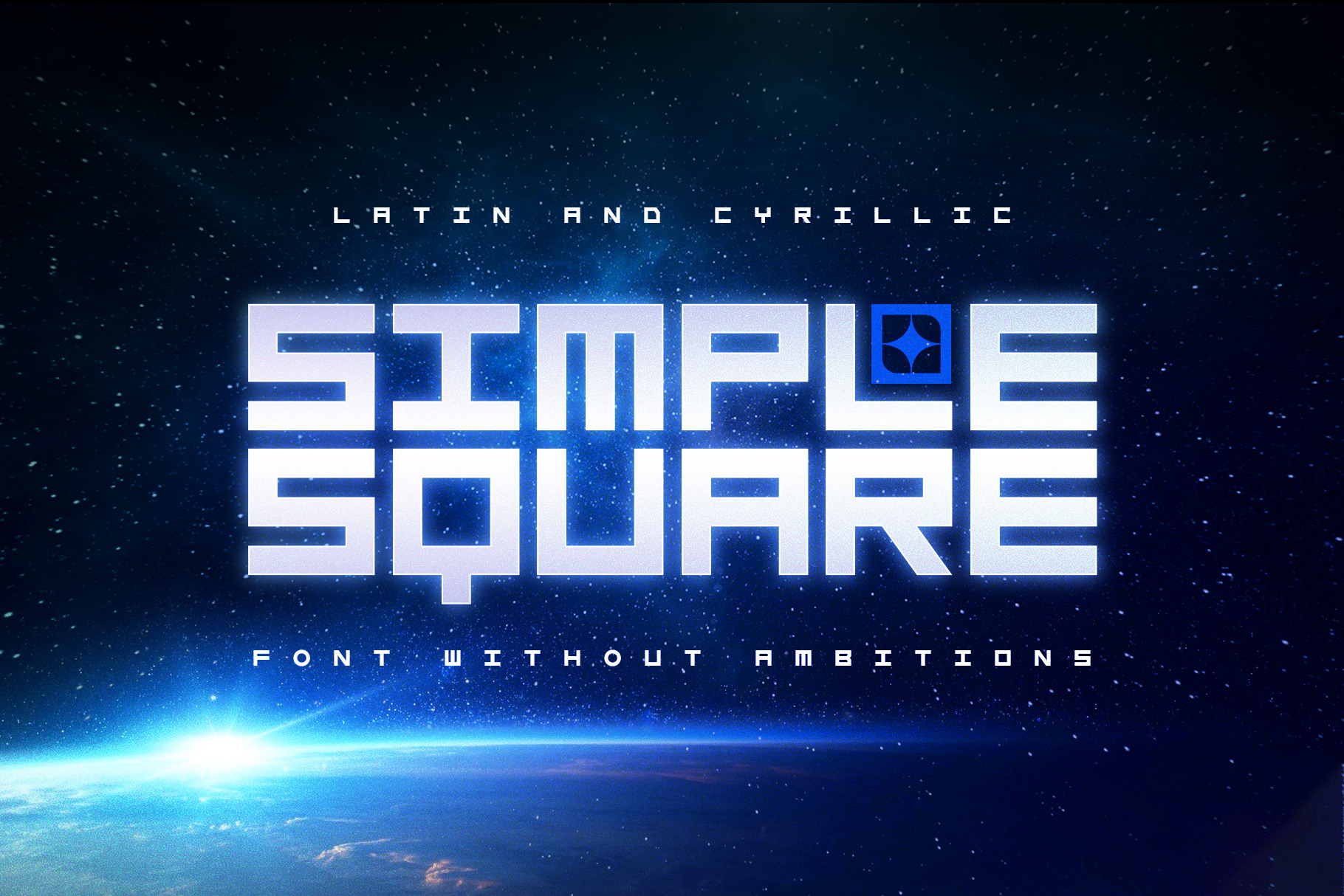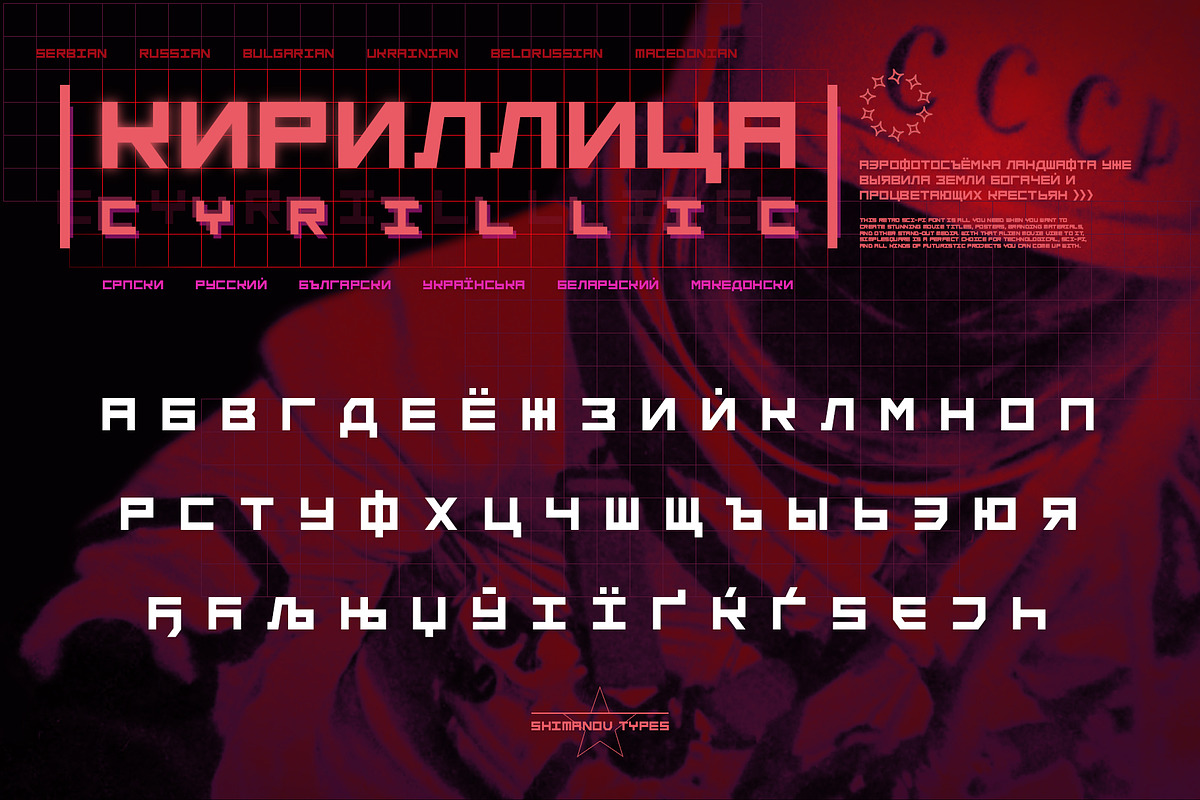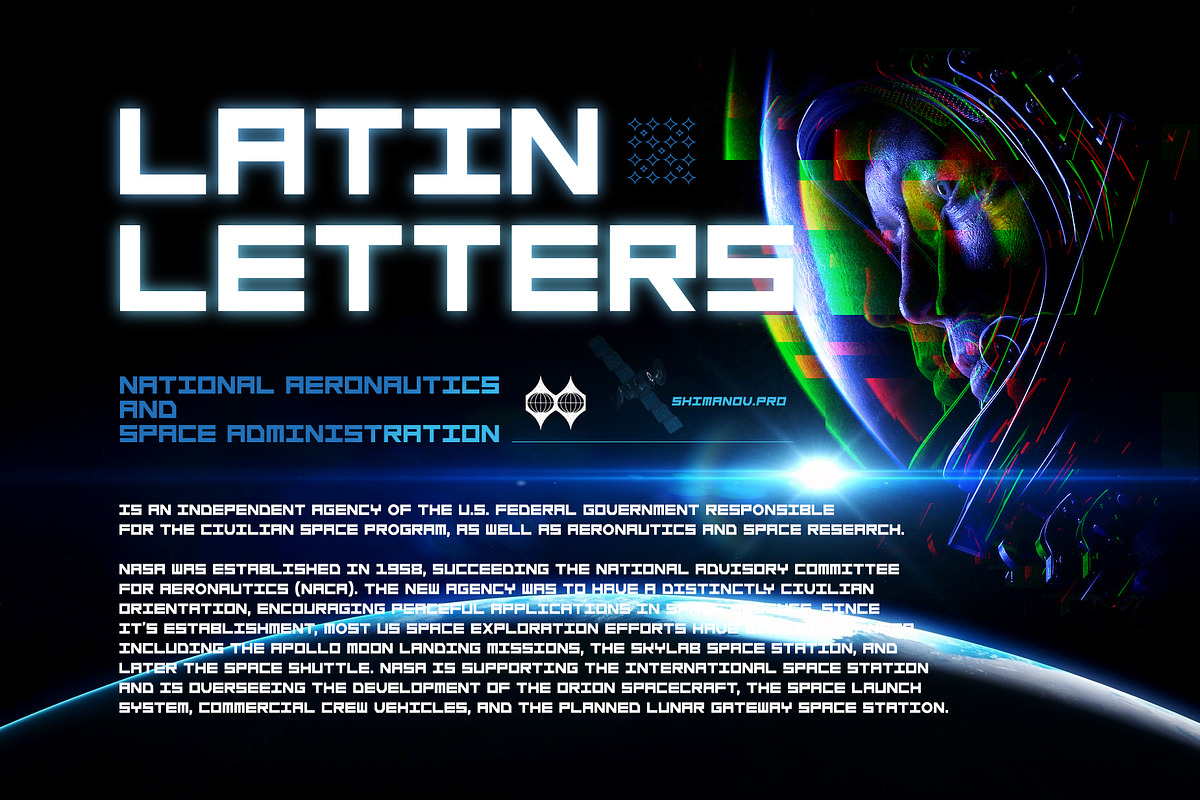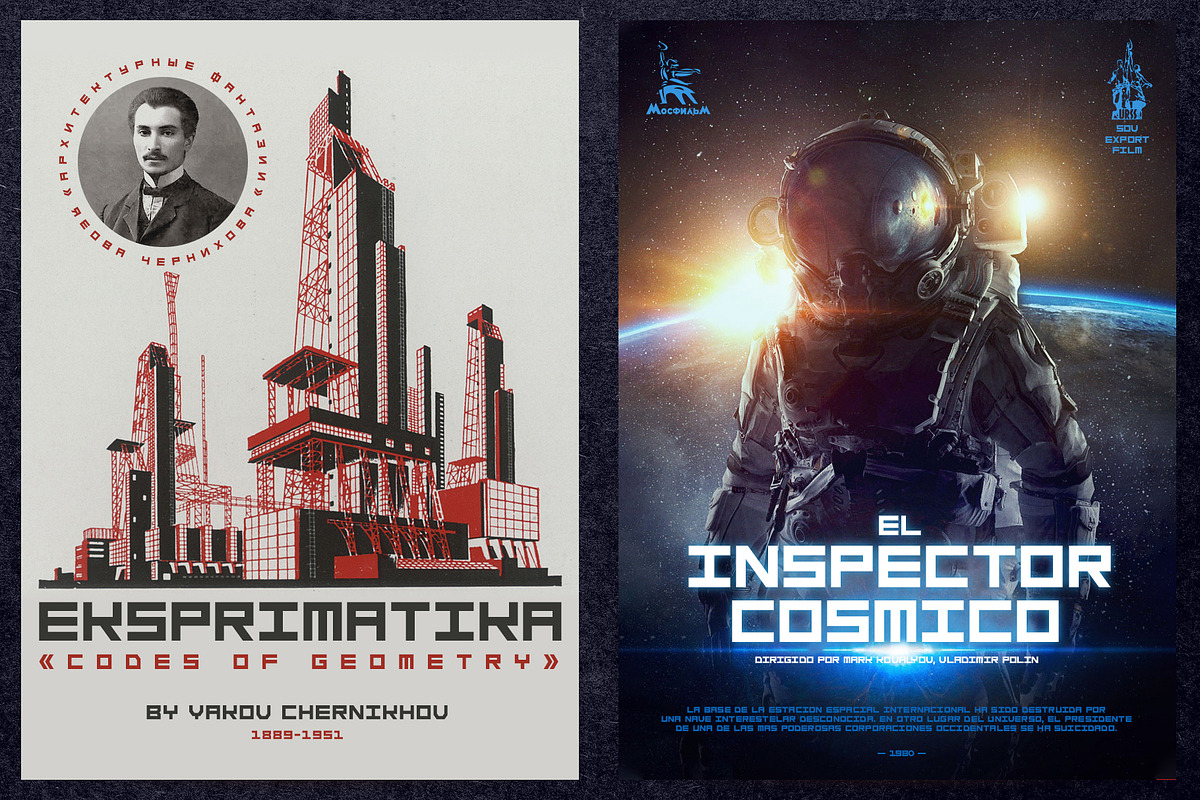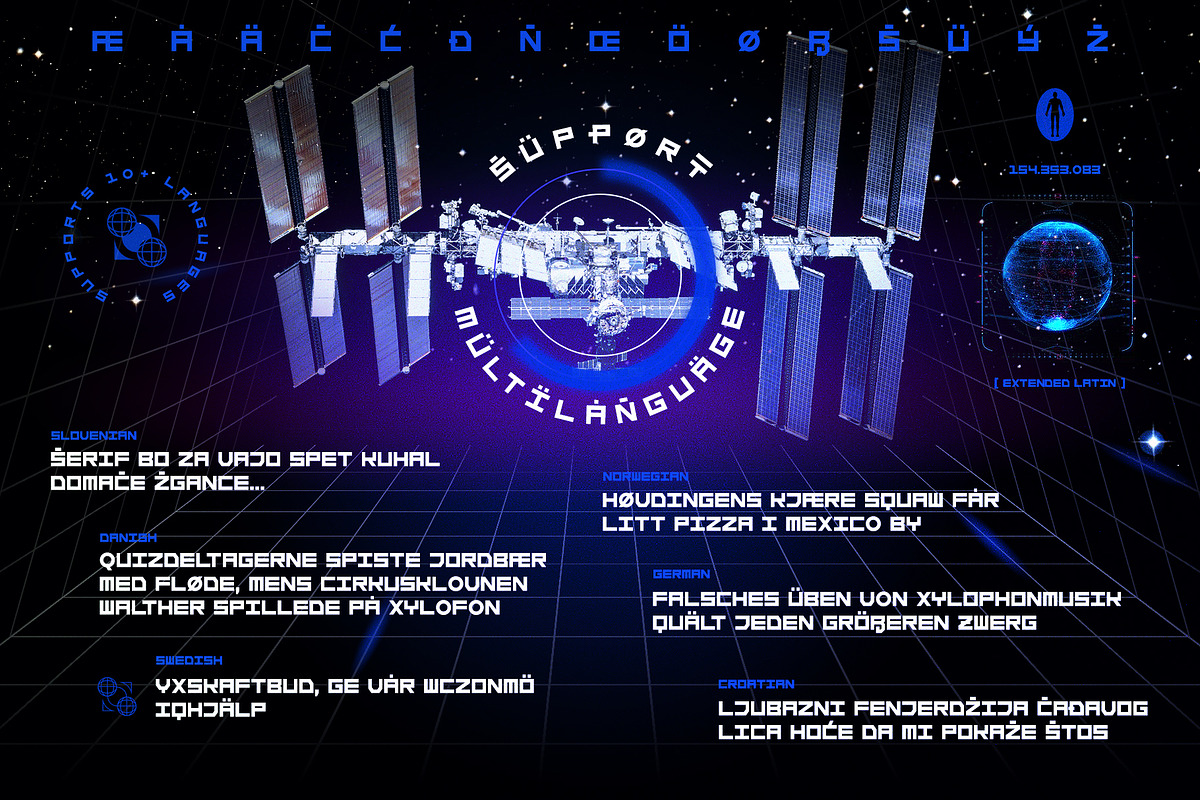
ST-SimpleSquare simple square font
This is a simple font without any ambitions. Based on simple square geometry it has retrofuturistic flow. Probably with the constructivism architectual touch. Small caps only. As it is simple font it's includes just basic punctuations and symbols.
However ST-SimpleSquare supports 15+ languages:
Latin: English, German, Italian, Norwegian, Swedish, Danish, Slovenian, Croatian, Finnish
Cyrillic: Russian, Belorussian, Ukrainian, Bulgarian, Serbian, Makedonian